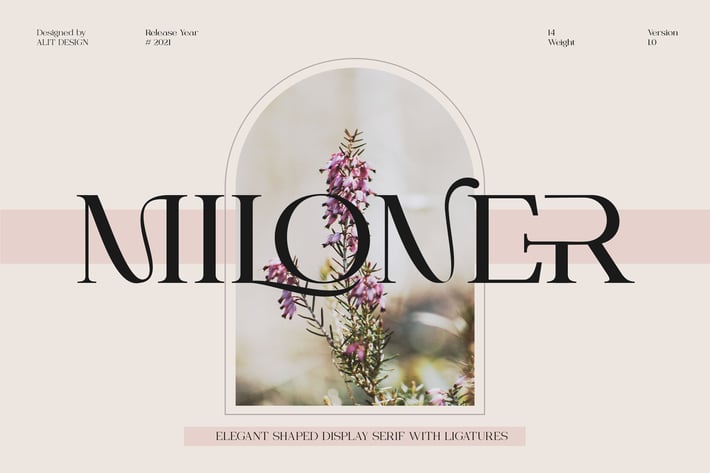
Miloner Typeface
Introducing Miloner Typeface
MILONER font family consists of 14 families, from Thin to Heavy style. The elegant modern font creates a unique design and is sure to steal the eye of the design target audience. Besides being unique, the MILONER font also has a luxury simple character that makes the design charming and luxurious.
These a fonts are perfect for designs with the concept of elegant, luxury, romance, fashion and so on.
A-Z Character Set
family (Thin-Heavy)
Numerals & Punctuations (OpenType Standard)
Stylistic Alternates
Ligatures